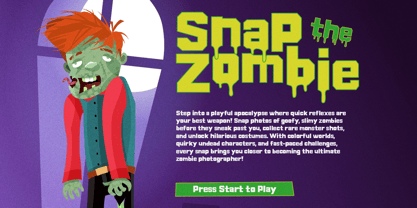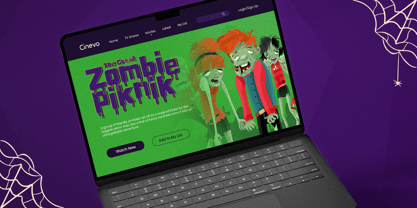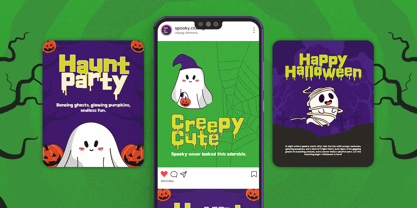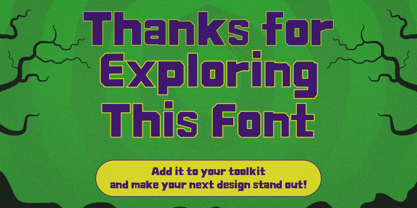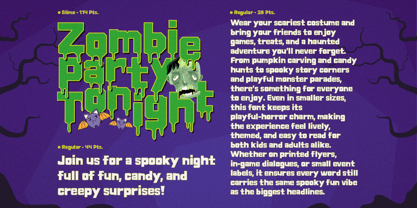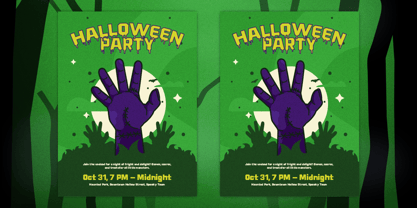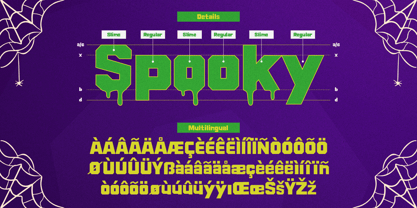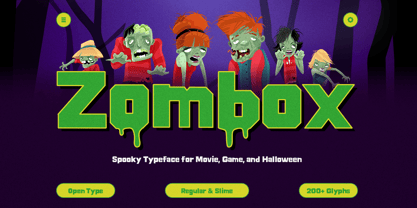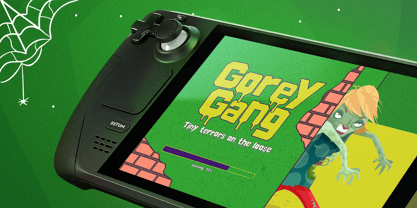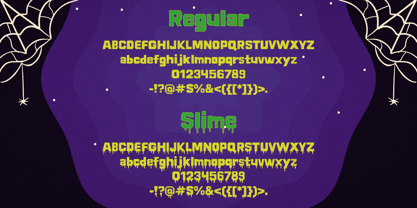
Zombox
The Zombox Font Family was designed by Asya Fatkhul Illah and published by Steptype. Zombox contains 2 styles and family package options. More about this family
Zombox is a spooky zombie-inspired display typeface built for designers who want to capture the raw, undead energy of horror. With its jagged, decayed letterforms and spine-chilling vibe, Zombox is perfect for projects that demand a terrifying yet bold presence.
Whether you’re working on a horror movie poster, zombie game UI, Halloween merch, haunted house branding, or eerie social media content, Zombox delivers the perfect mix of spooky, freaky, and cinematic.
Why Choose Zombox?
• 🧟 Zombie-Inspired Lettering – rough, decayed strokes that mimic the undead aesthetic.
• 🎃 Perfect for Halloween – from party flyers to seasonal branding, it sets the perfect haunted tone.
• 🎮 Built for Games & Movies – dramatic enough for titles, UI, and horror cover art.
• 👻 Spooky & Playful Balance – terrifying yet approachable, ideal for both serious horror and fun Halloween themes.
• 🕸️ Highly Versatile – works for logos, posters, packaging, merch, and event promotions.
Best Uses for Zombox
✔ Horror movie posters✔ Zombie video games✔ Halloween branding & events✔ Haunted house promotions✔ Merch, apparel, stickers & packaging
Your Next Horror Design Essential
If you’re looking for a freaky font that captures the undead, dripping, zombie-inspired aesthetic, Zombox is your go-to choice. Its bold, decayed form makes every design look like it just crawled out of the grave.